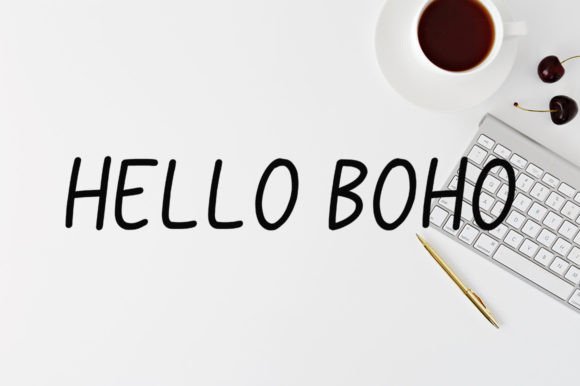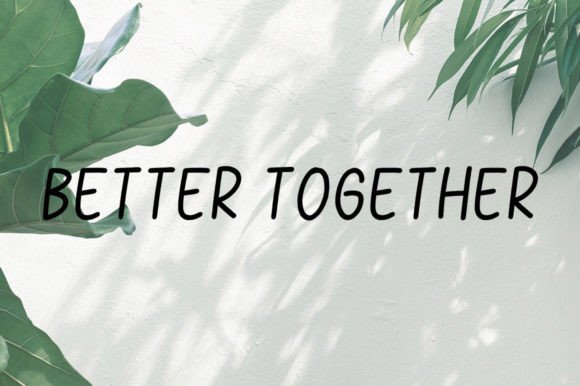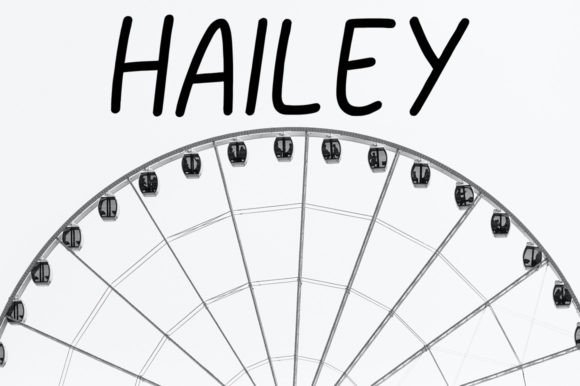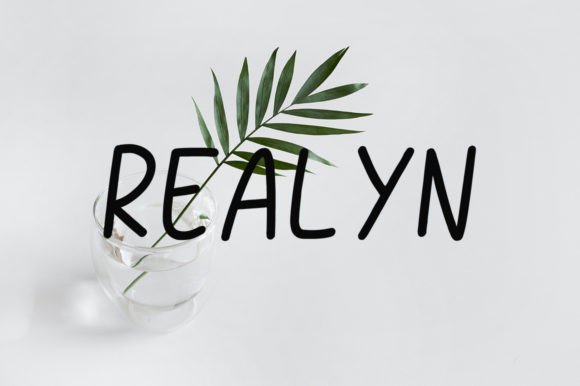
Amandiasa
About Amandiasa
Amandiasa is a minimalist and neat sans serif font. It can easily be matched to an incredibly large set of projects, so add it to your creative ideas and notice how it makes them stand out!